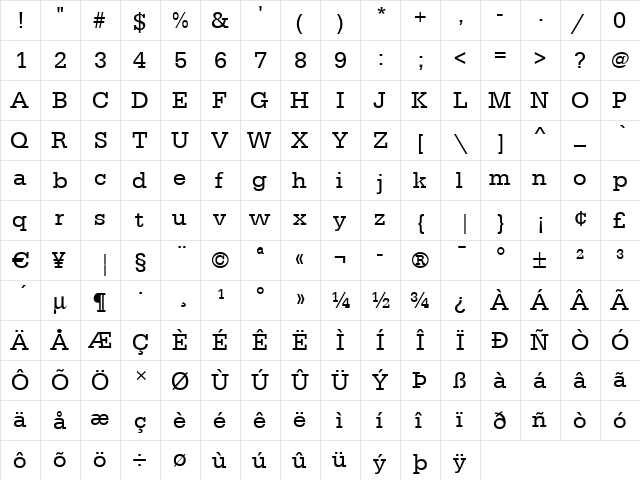
AnitaBecker Regular
Design Context for AnitaBecker Typeface
AnitaBecker takes a measured approach to typography — its balanced proportions and neutral character make it a reliable workhorse for both digital and print work.